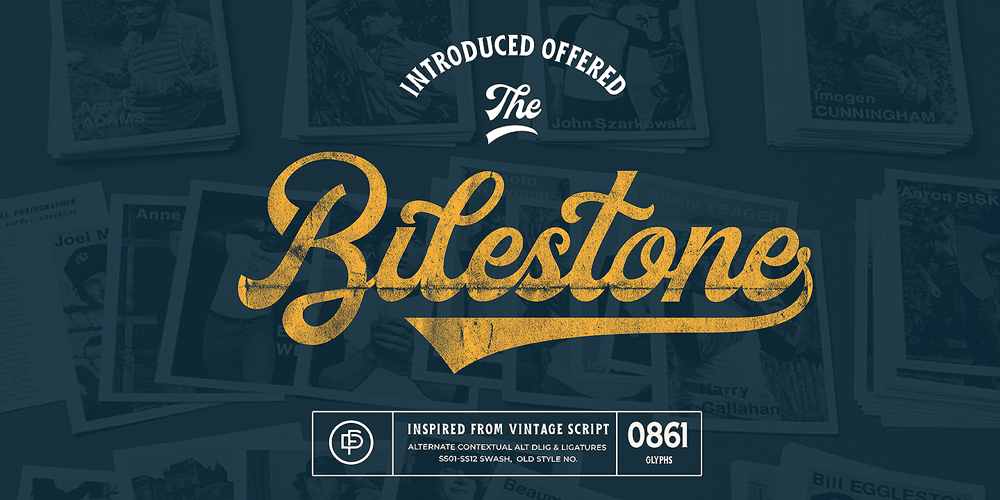
Bilestone Font Family was designed by Ramandhani Nugraha and published by Fortunes Co. Bilestone contains 2 styles and family package options. Bilestone inspired from vintage baseball, sign painting, and labeling, is suitable for logos, product names packages, labels, old fashioned coffee shops, bars and everything with specific characteristics of past times. Bilestone is a great combination to create something good and with a vintage feel.